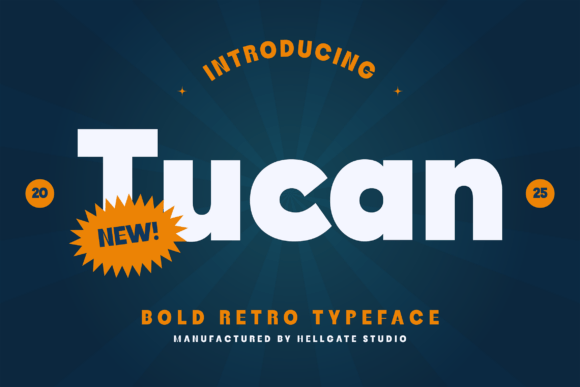
Tucan Bold Font: Unleash the Power of Boldness and Vintage Charm
In the world of typography, fonts play a crucial role in conveying the tone and personality of a brand or design. Among the numerous font styles available, bold fonts have gained immense popularity for their ability to grab attention and exude confidence. One such font that has been making waves in the design community is the Tucan Bold Font. In this article, we’ll dive into the world of Tucan Bold, exploring its features, benefits, and uses, as well as provide a comprehensive guide on how to make the most of this incredible font.
Introducing Tucan Bold Retro Typeface
The Tucan Bold Font is a masterfully crafted retro typeface that embodies an audacious attitude, perfect for designers looking to create a modern theme with a touch of vintage charm. Its bold structure and robust nature lend a strong appeal, effortlessly enhancing any text it’s used with. Whether you’re working on a branding project, advertisement, or editorial content, Tucan Bold is sure to make a statement.
Key Benefits of Tucan Bold Font
- Versatility: Tucan Bold Font is incredibly versatile, allowing for easy text and color editing. This provides a seamless design experience, making it easy to experiment with different styles and combinations.
- High-Quality Rendering: The font boasts impressive, high-quality rendering, ensuring that what you see is truly what you get. This eliminates any guesswork, allowing you to focus on the creative process.
- Aesthetic Edge: With Tucan Bold, you can add an aesthetic edge to your work, setting it apart from the rest. The font’s unique blend of boldness and vintage charm makes it perfect for designers looking to create something truly unique.
Exploring the Uses of Tucan Bold Font
The Tucan Bold Font is an incredibly versatile typeface, suitable for a wide range of design projects. Here are some of the most popular use cases:
- Branding and Logo Design: Tucan Bold’s bold structure and robust nature make it perfect for creating striking logos and brand identities.
- Advertising and Marketing: The font’s attention-grabbing style makes it ideal for use in advertisements, promotional materials, and marketing campaigns.
- Editorial Content: Tucan Bold can add a touch of sophistication and elegance to editorial content, such as magazines, newspapers, and blogs.
- Packaging Design: The font’s unique blend of boldness and vintage charm makes it perfect for use in packaging design, adding a touch of personality to product labels and packaging.
Tips and Tricks for Using Tucan Bold Font
To get the most out of Tucan Bold Font, here are some tips and tricks to keep in mind:
- Experiment with Colors: Tucan Bold looks great in a variety of colors, so don’t be afraid to experiment and find the perfect hue to match your brand or design.
- Pair with Other Fonts: The font pairs well with other fonts, so try combining it with a sans-serif or script font to create a unique look.
- Use it Sparingly: While Tucan Bold is a stunning font, it’s best used sparingly. Use it to draw attention to a specific element or to add emphasis to a particular piece of text.
In conclusion, the Tucan Bold Font is an incredible typeface that offers a unique blend of boldness and vintage charm. Its versatility, high-quality rendering, and aesthetic edge make it perfect for designers looking to create striking designs that grab attention. Whether you’re working on a branding project, advertisement, or editorial content, Tucan Bold is sure to make a statement. So why wait? Immerse yourself in the boldness and power of Tucan Bold Retro Typeface and take your designs to the next level.